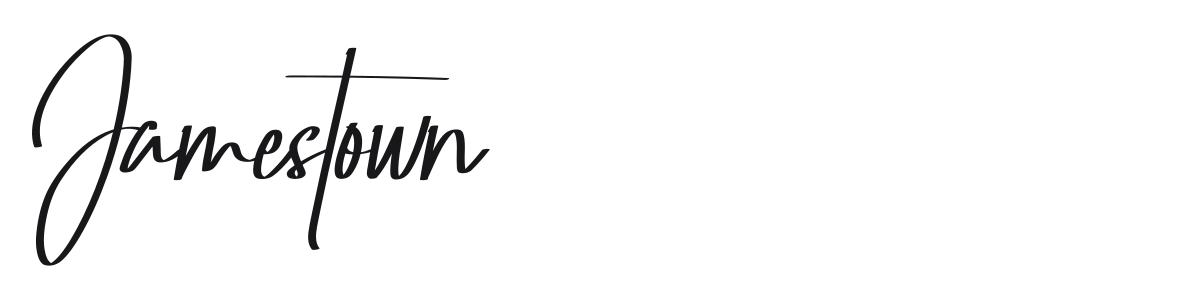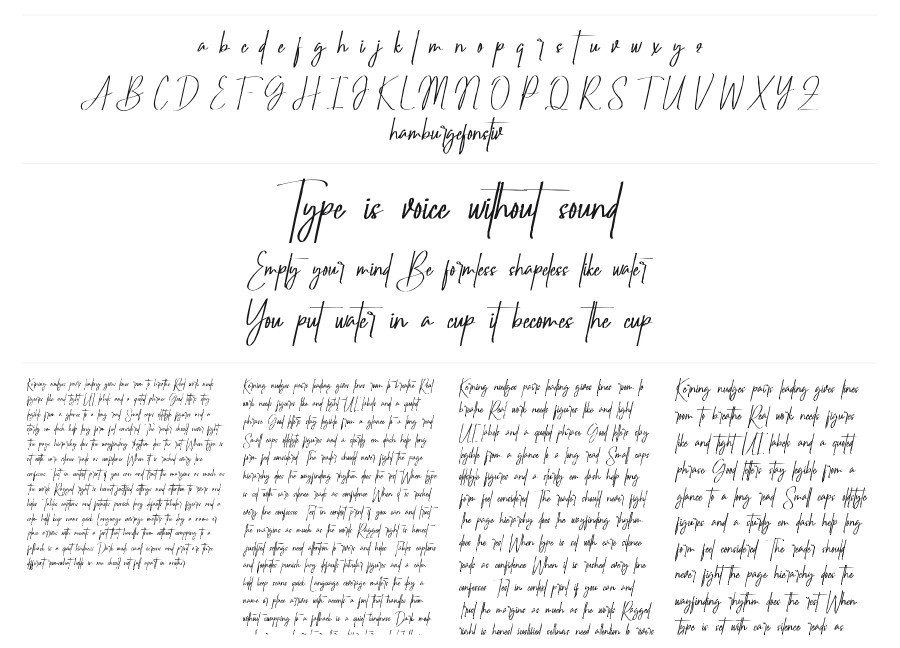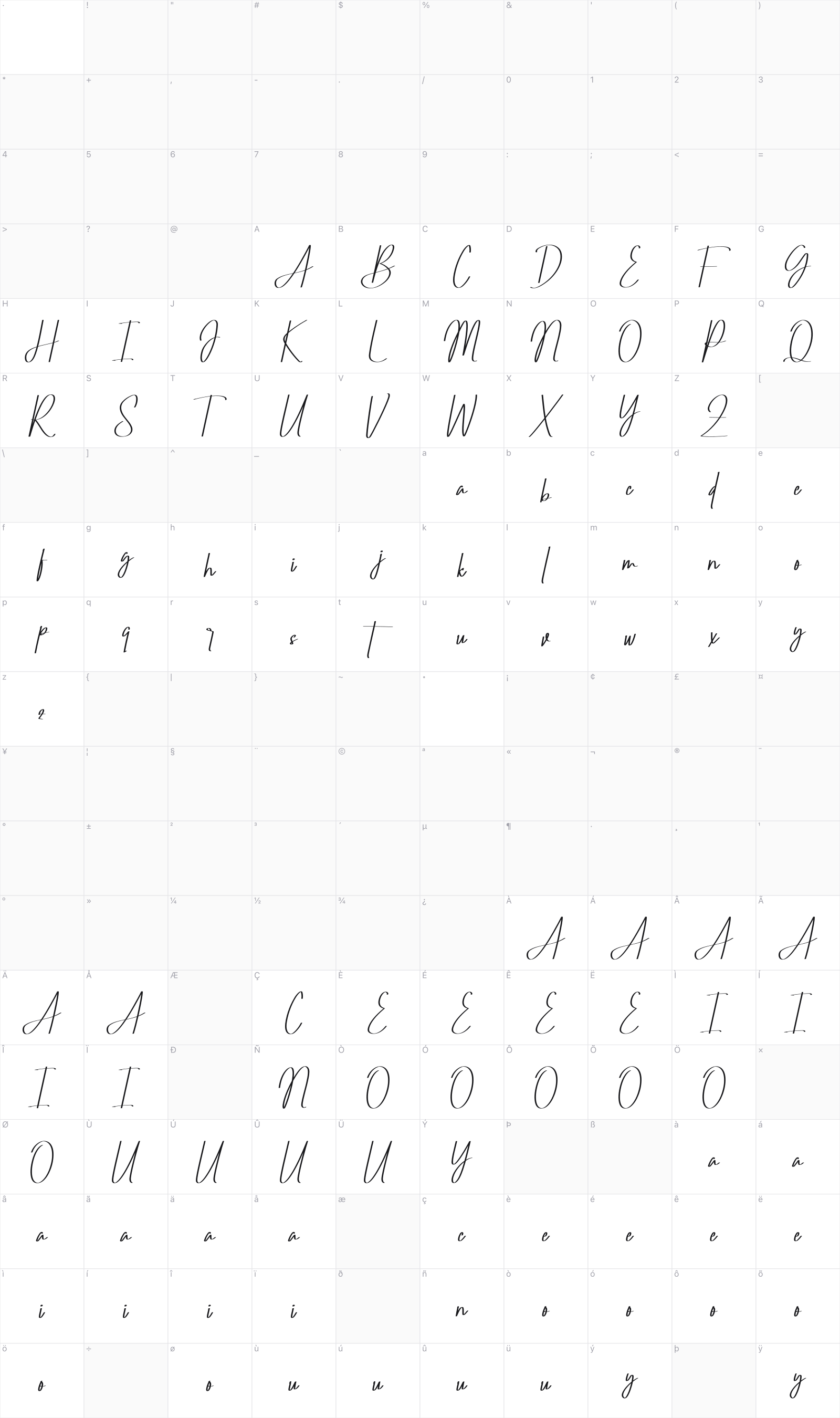
Jamestown
Jamestown is a flowing casual script with the loose, natural rhythm of a confident handwritten signature. Its wispy thin strokes and extended sweeping tails give it an airy elegance without feeling overly formal. A go-to for wedding stationery, lifestyle branding, and packaging where a human, personal touch matters.